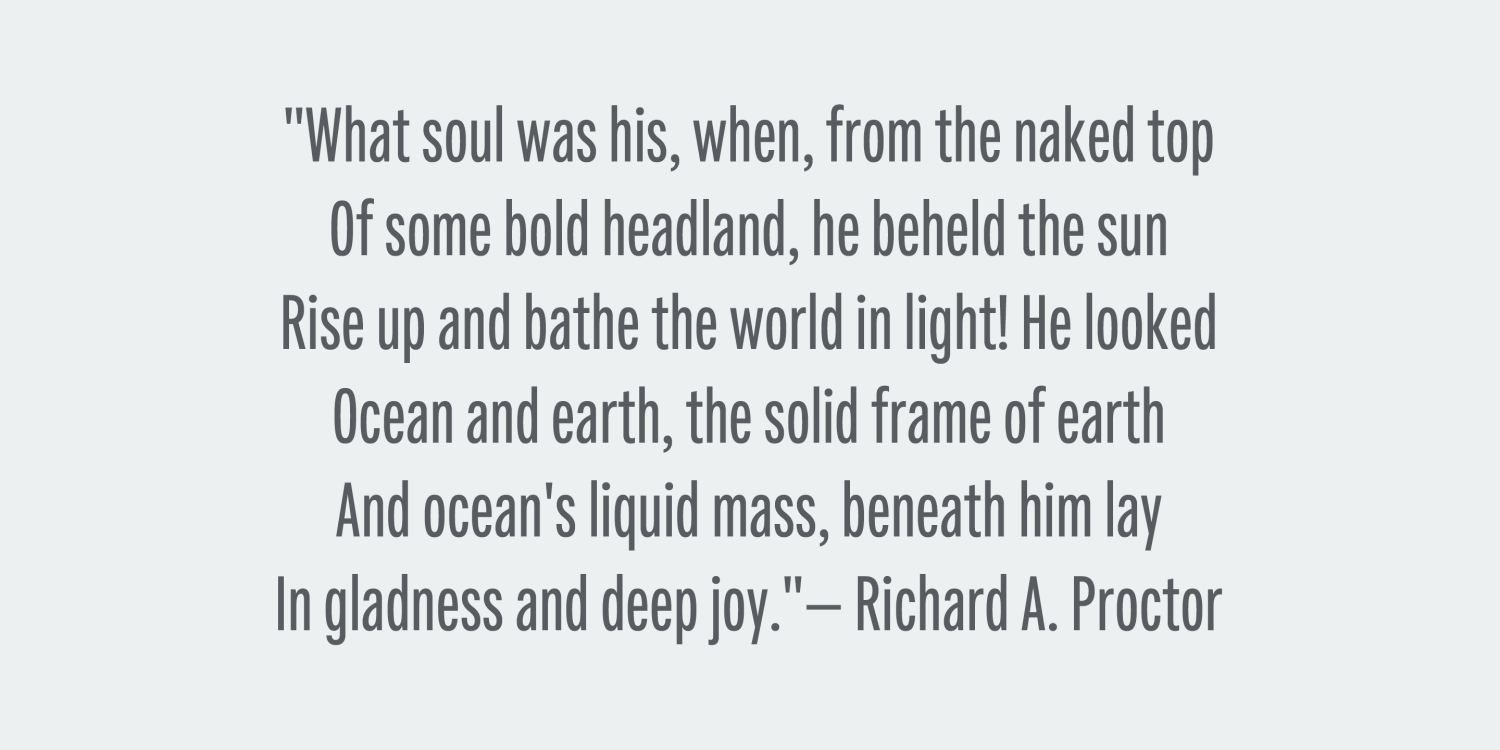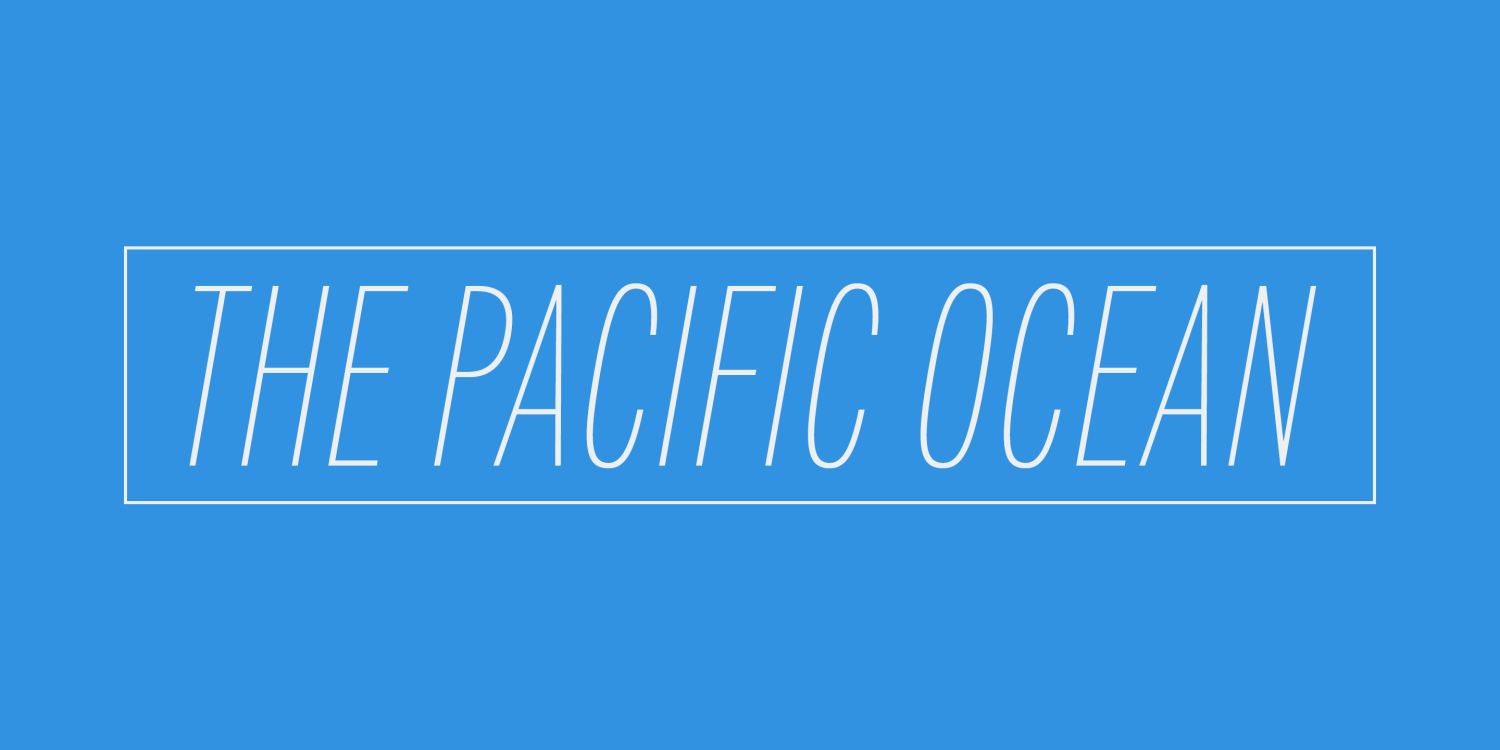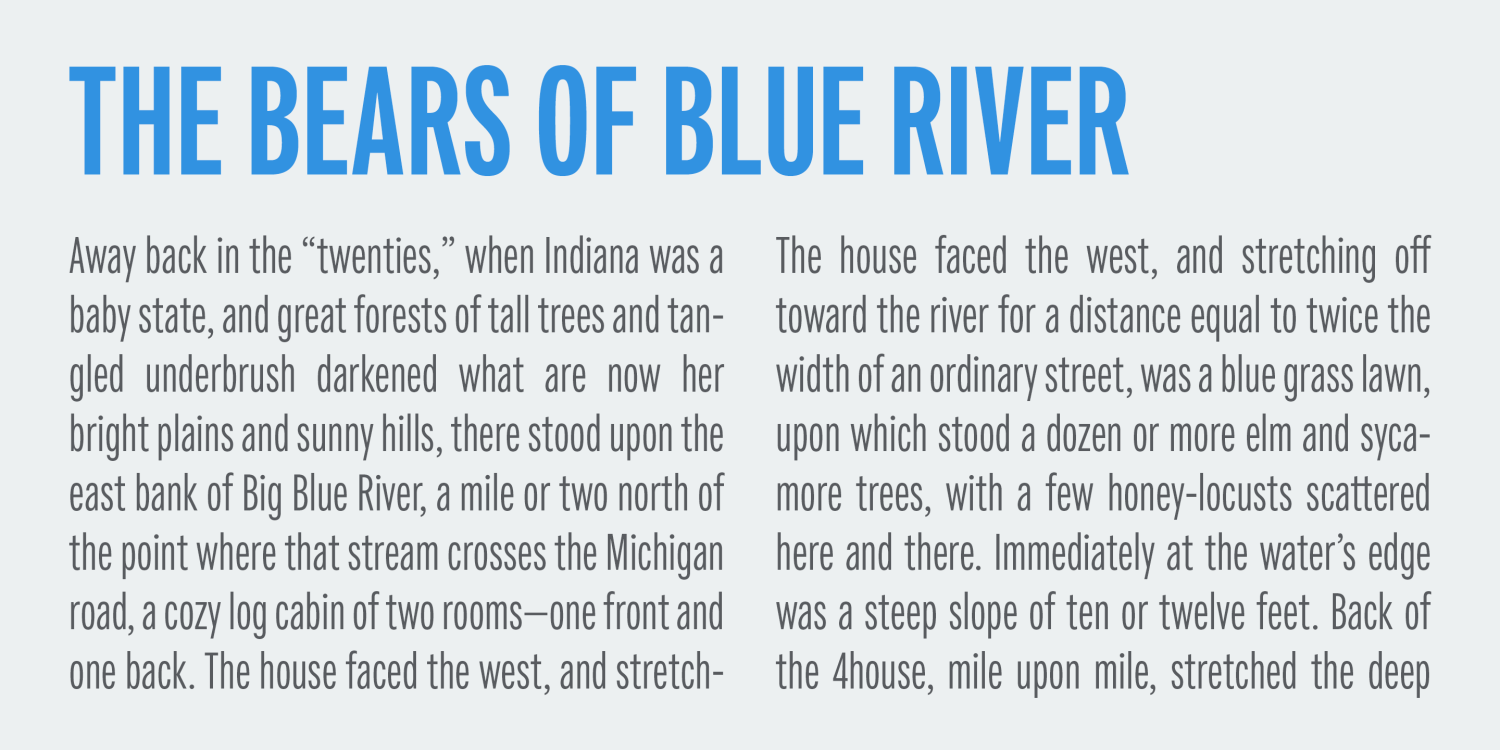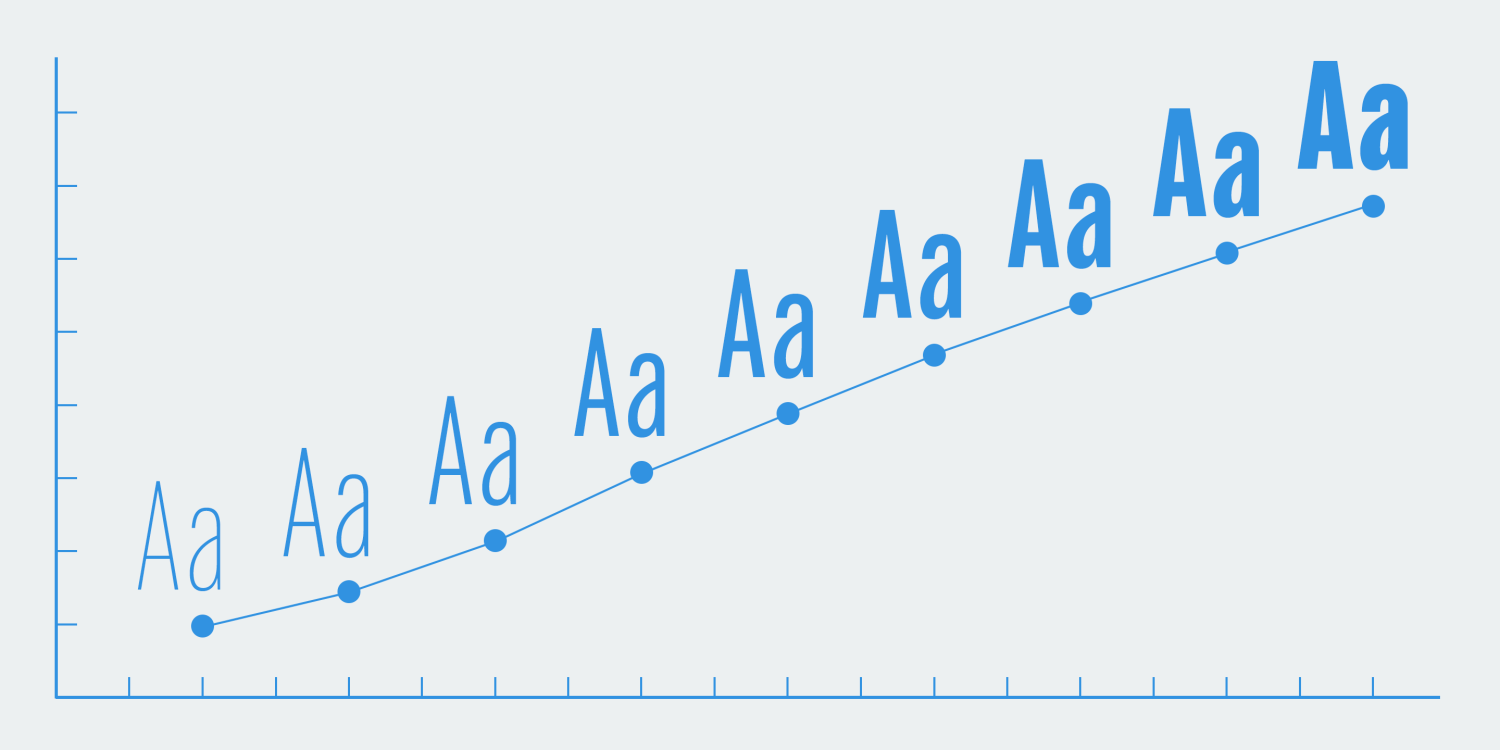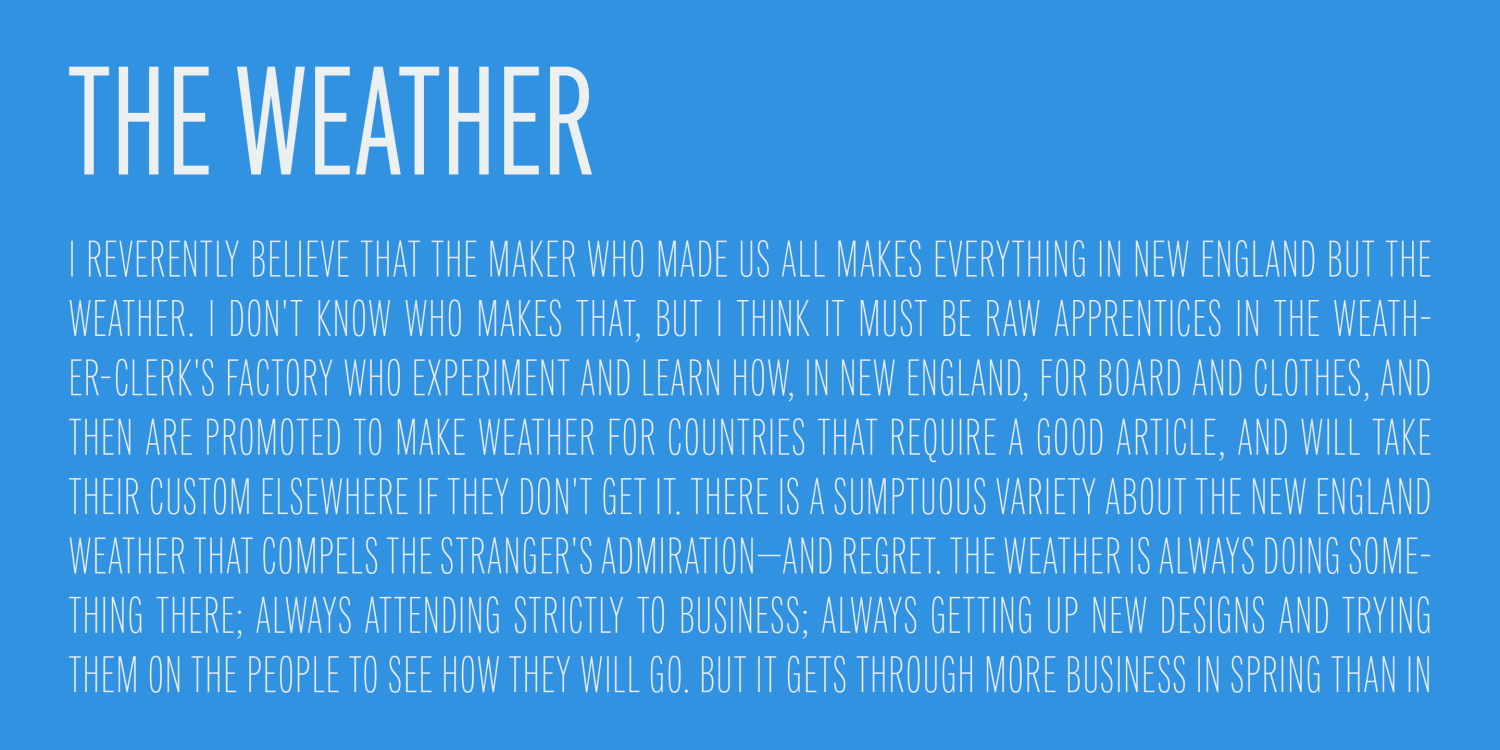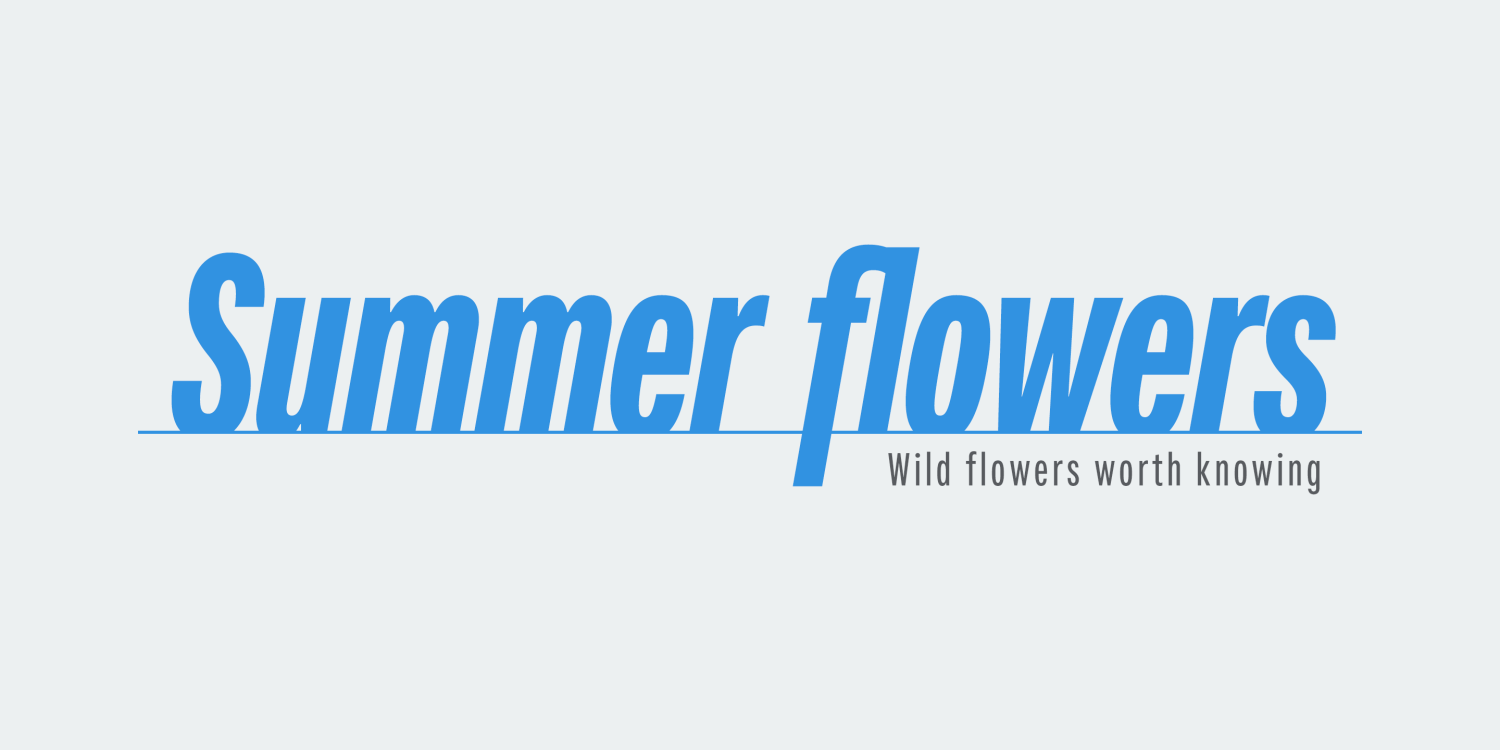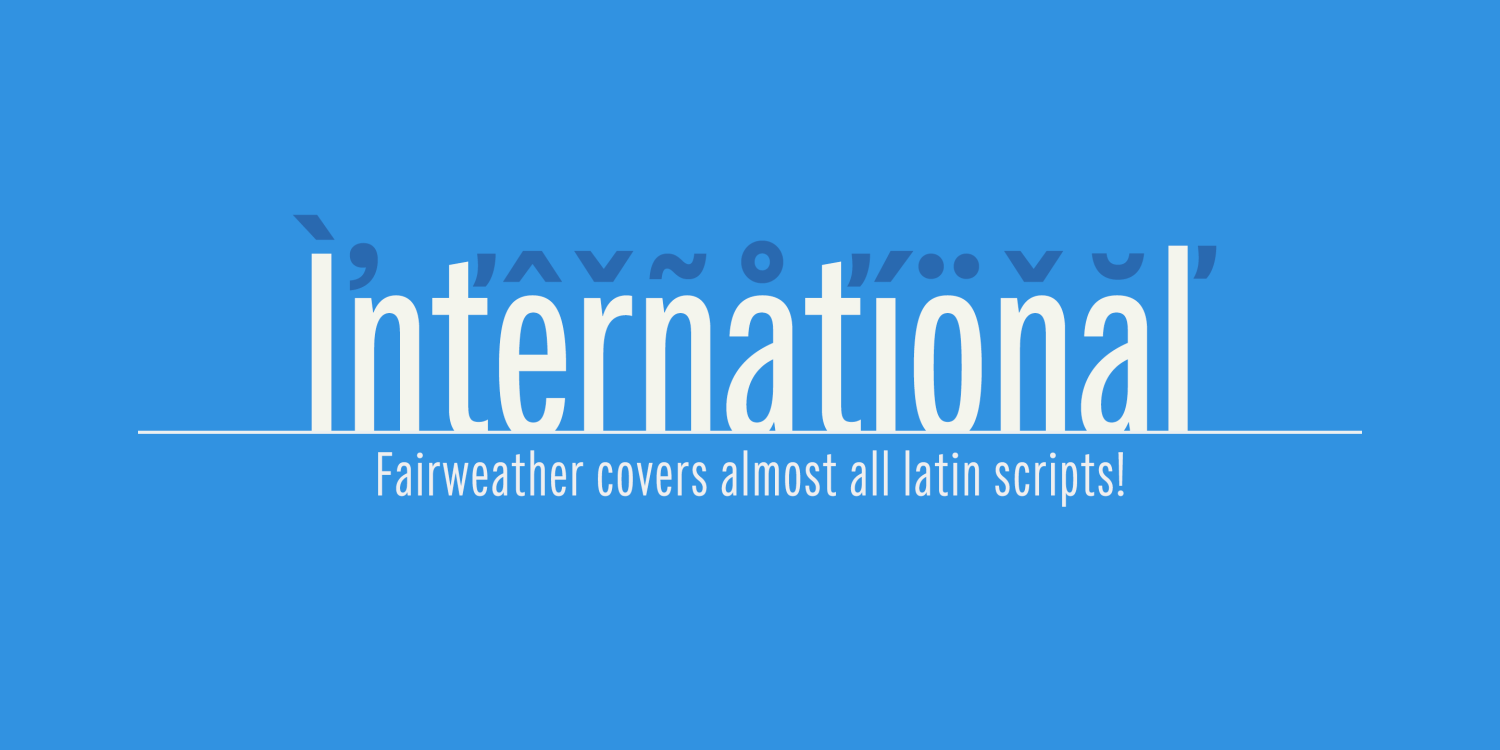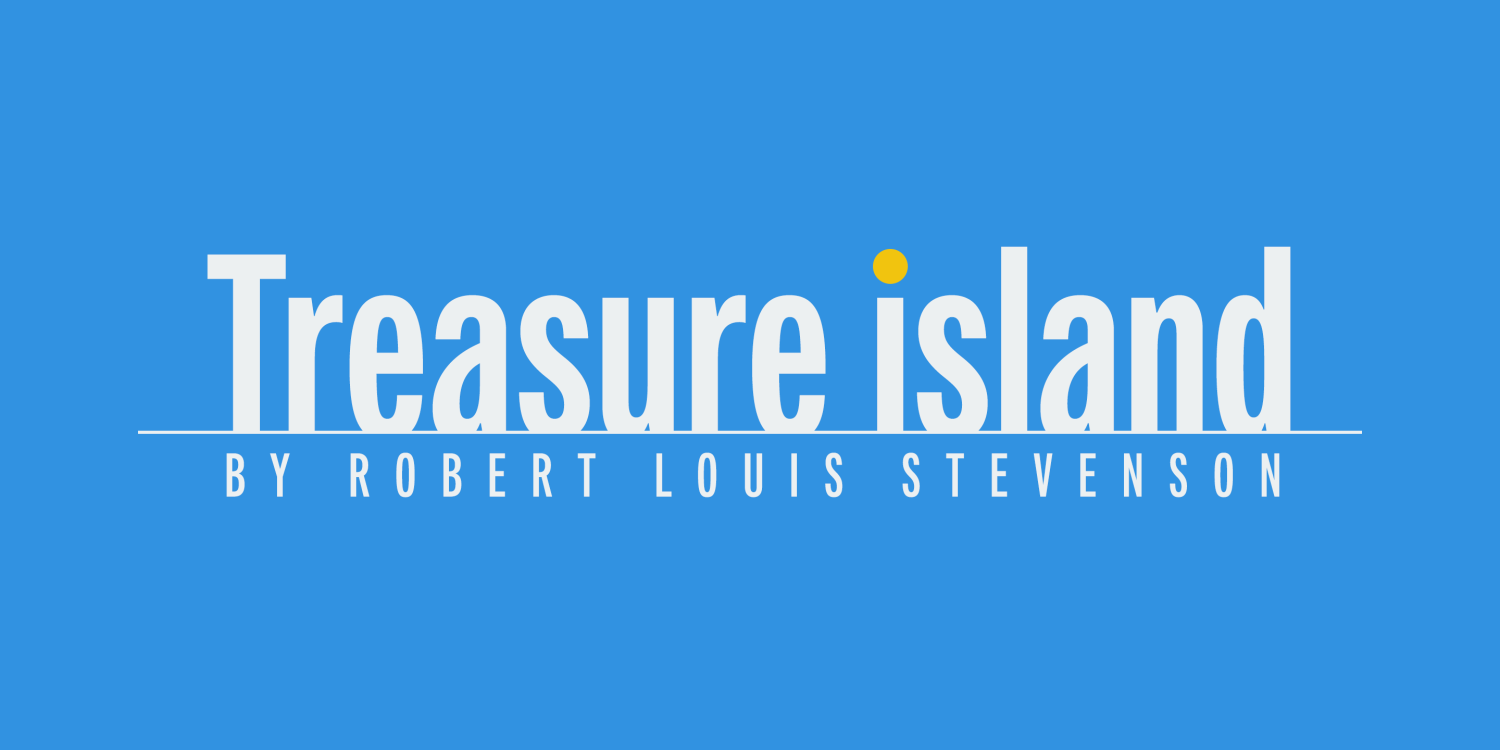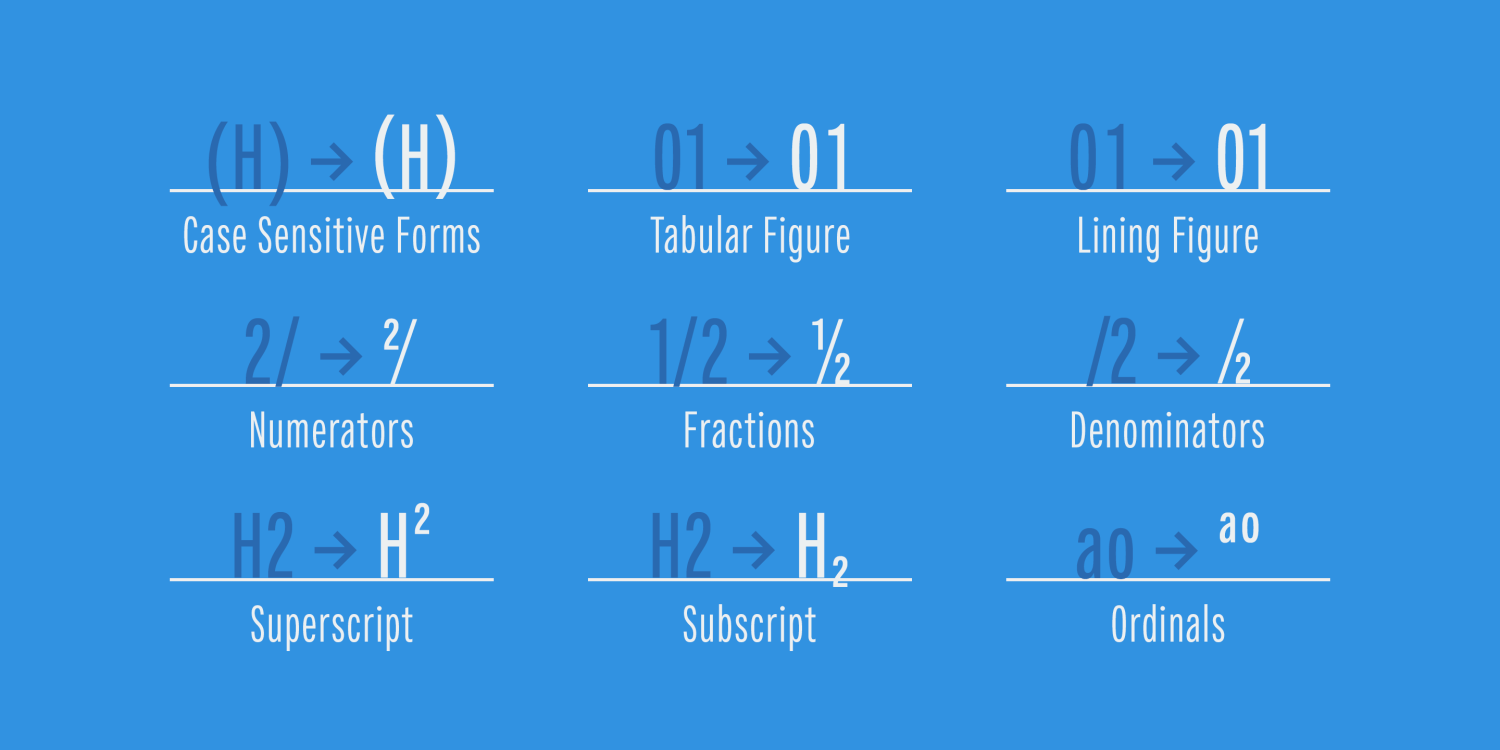
Fairweather
Font Family by Dharma Type
Fairweather is like a breath of fresh air—clear, transparent, and lucid, reminiscent of a crisp spring or autumn sky.
Designed with a focus on condensation, legibility, and clarity, Fairweather excels in titles and captions. But that’s just the beginning.
Its neutral, plain letterforms make it an exceptionally versatile typeface, adaptable to a wide range of uses.
Thanks to its condensed proportions, Fairweather is also highly effective in body text for tight layouts, while its clean, unobtrusive shapes allow your artwork and message to take center stage.
The family includes nine weights with matching italics and supports almost all Latin-based languages, making it both functional and elegant across print and digital media.